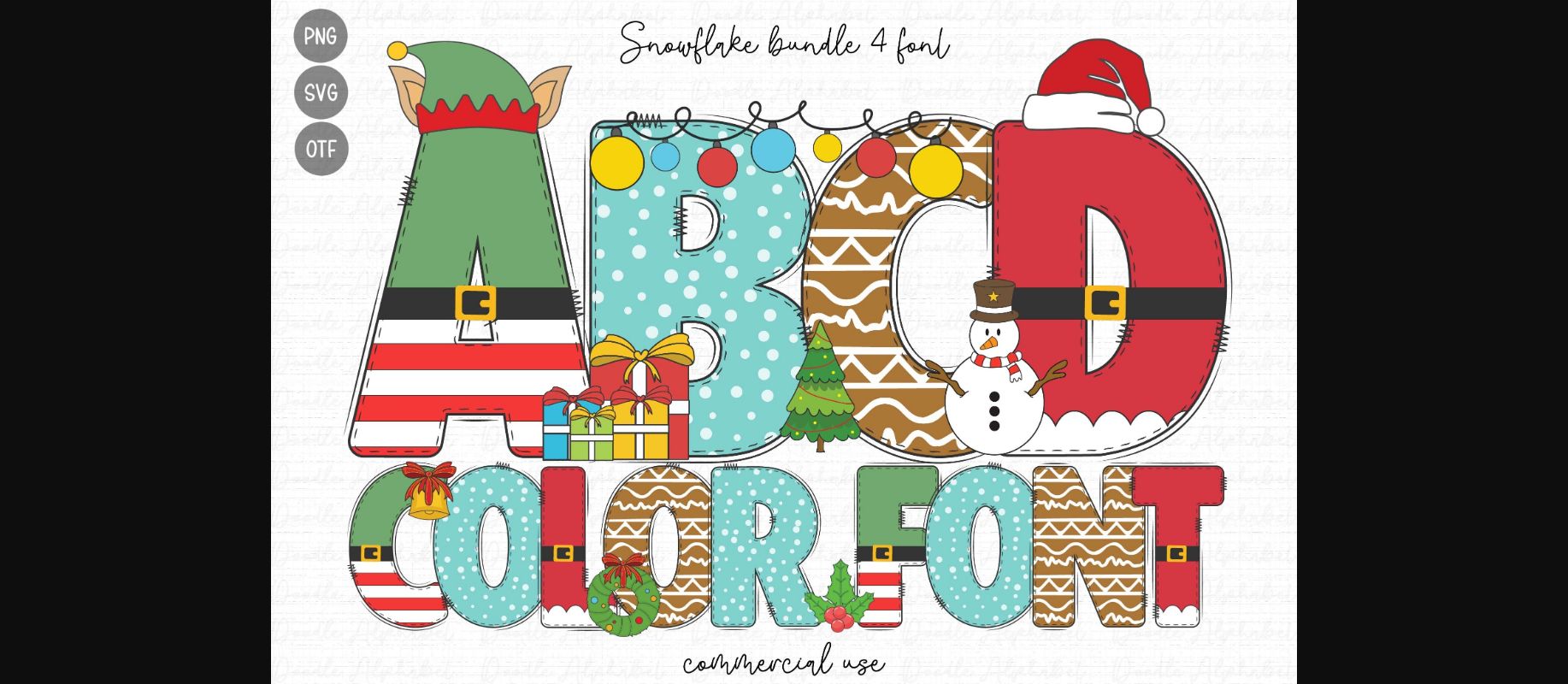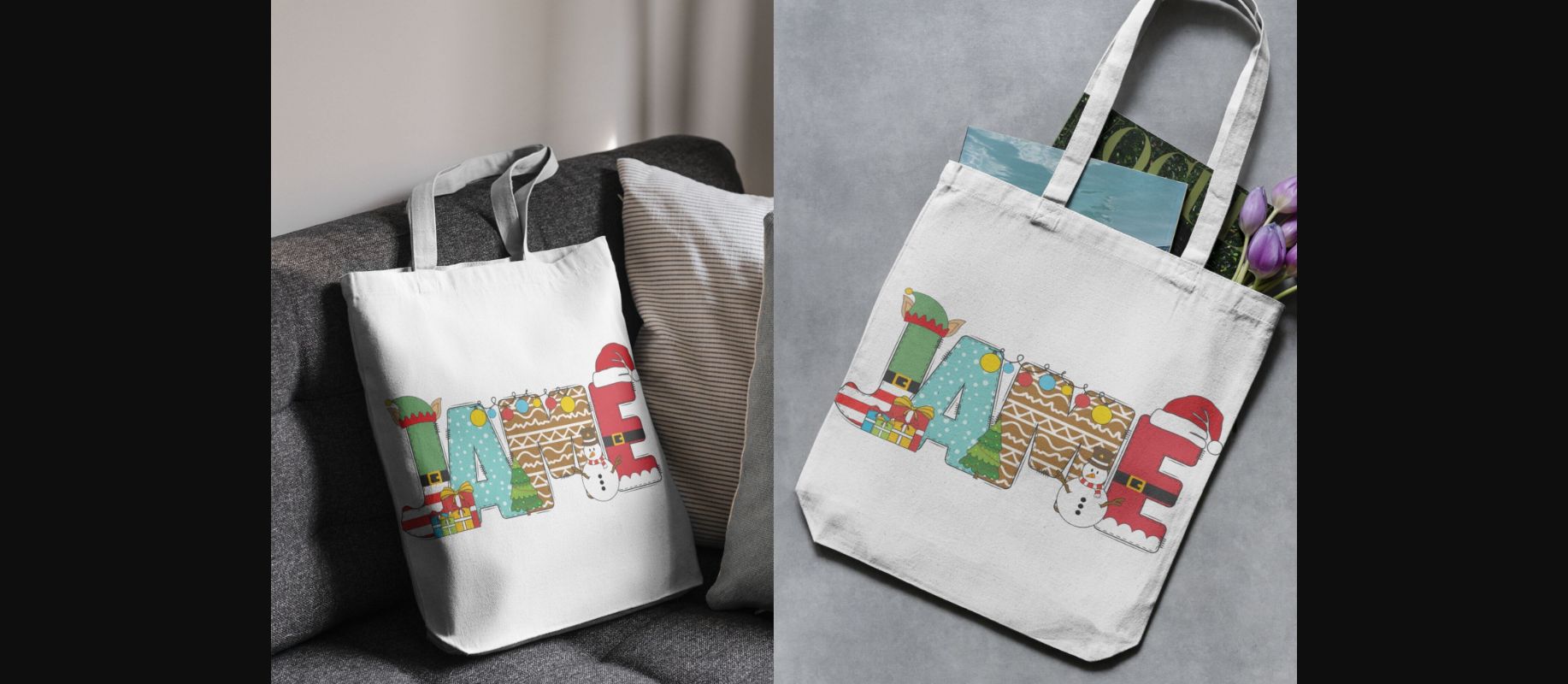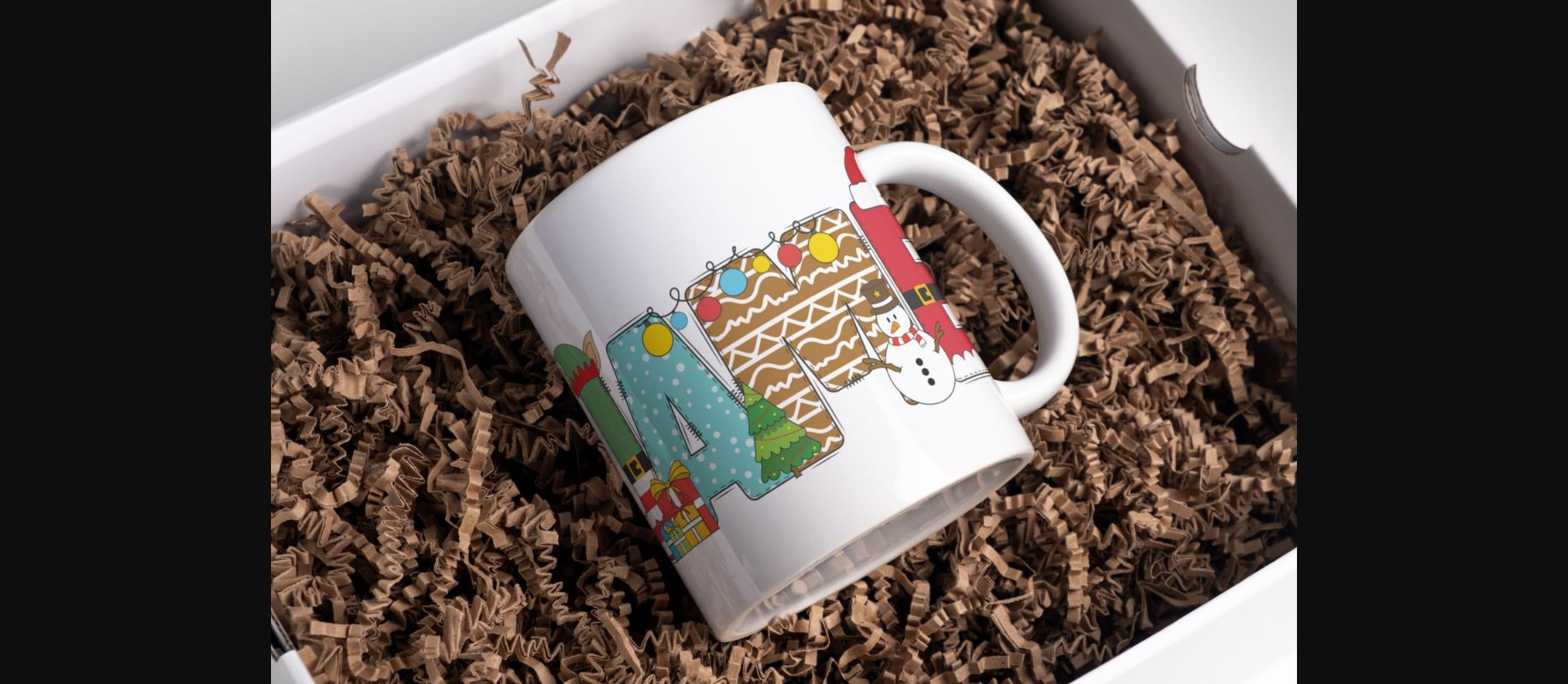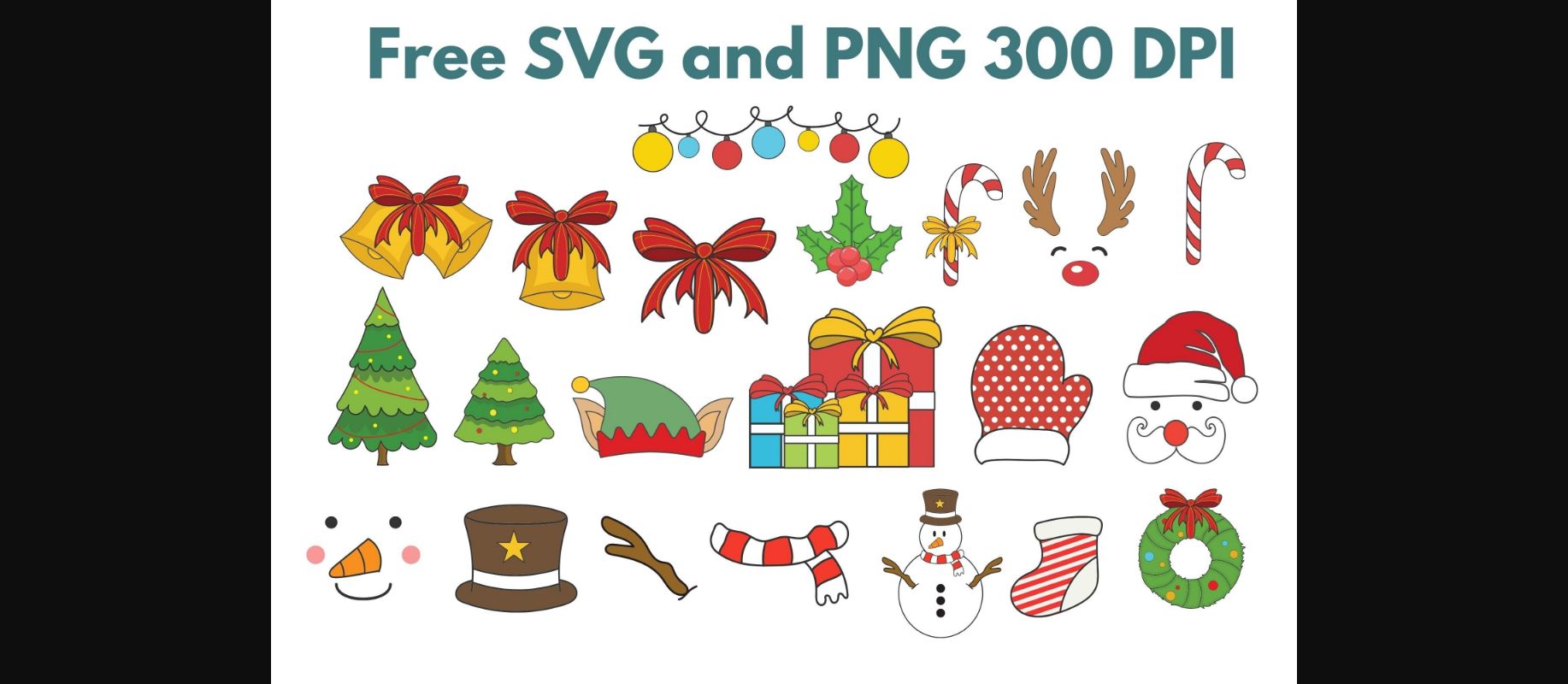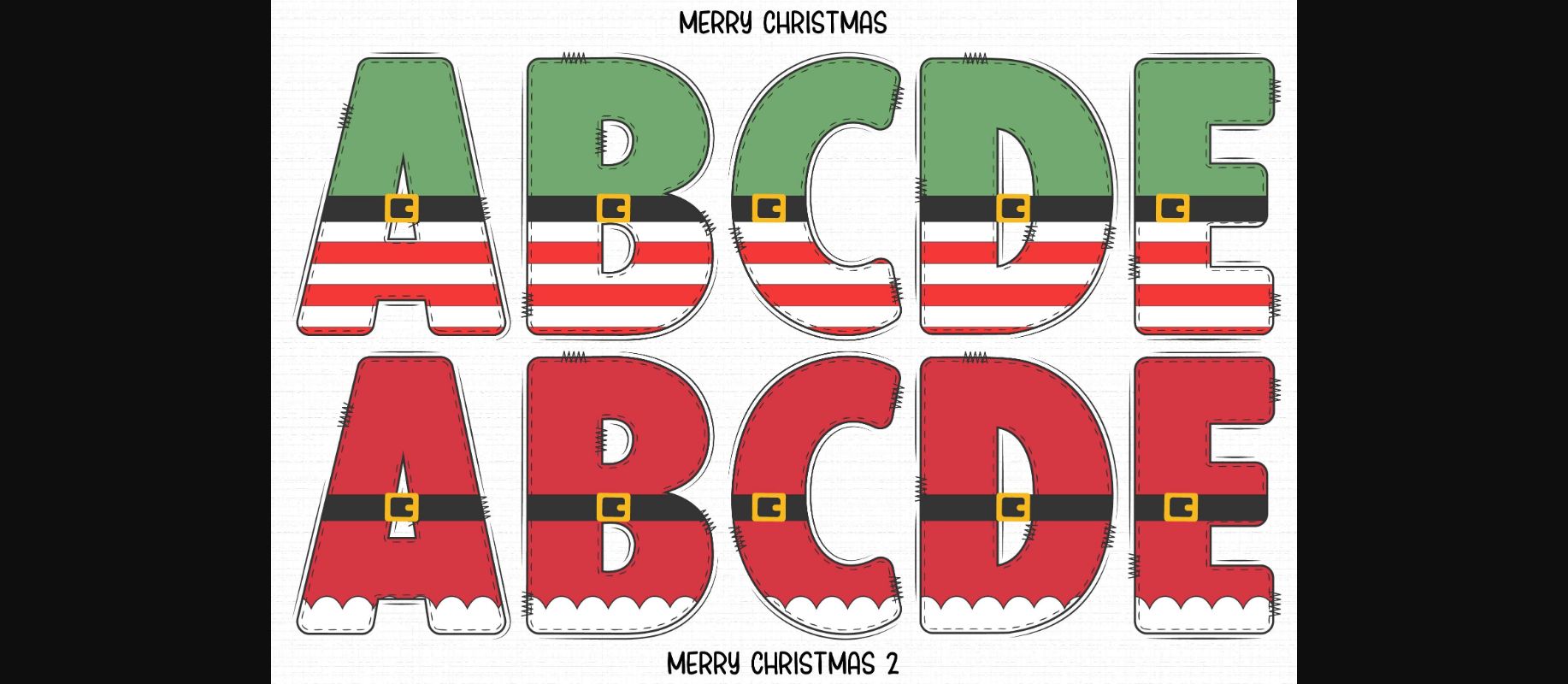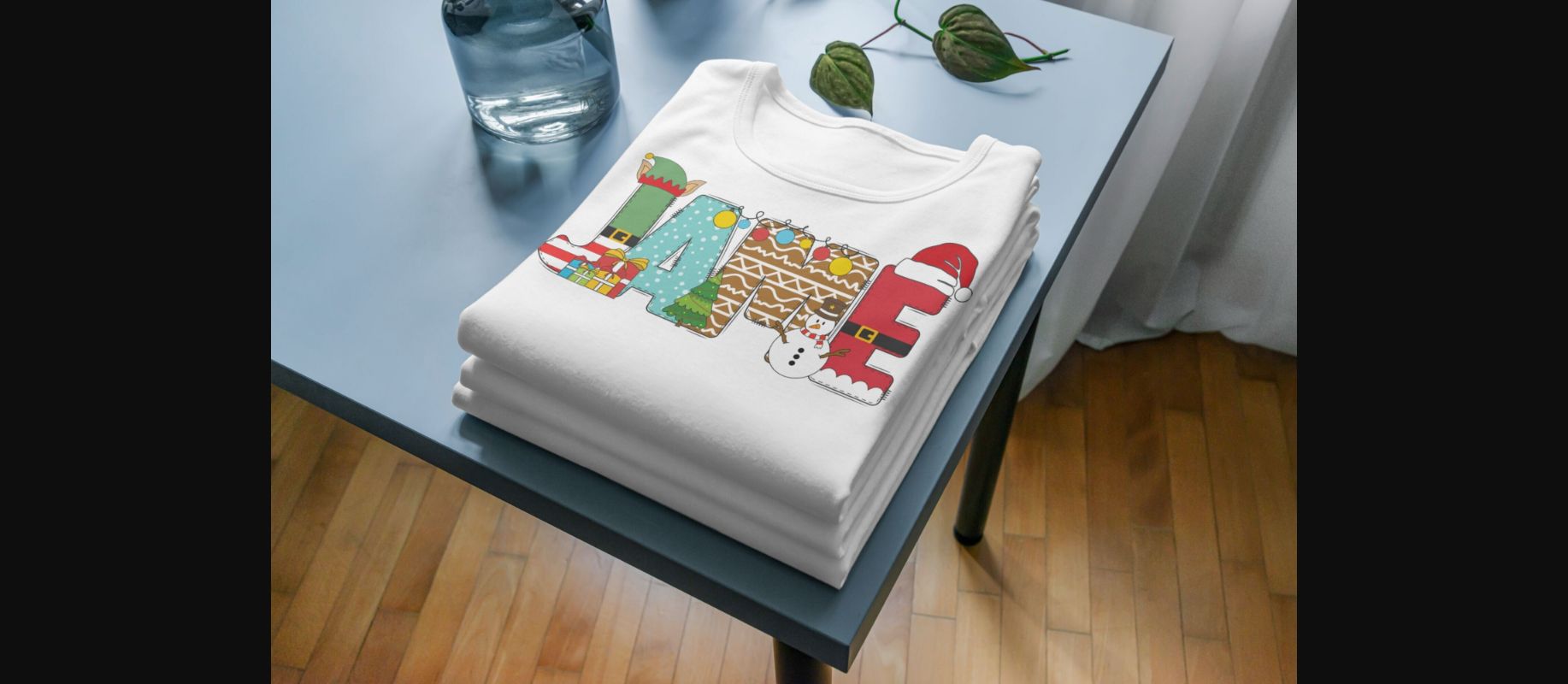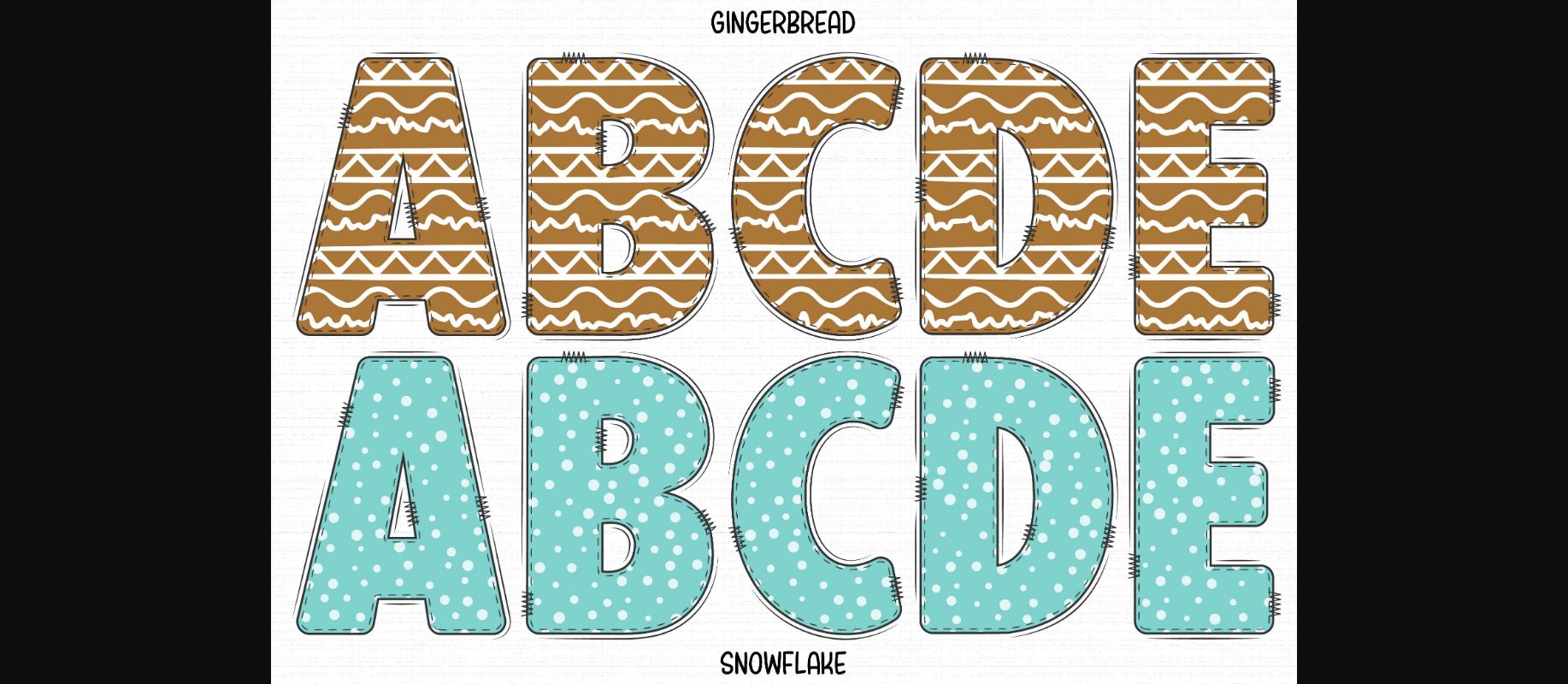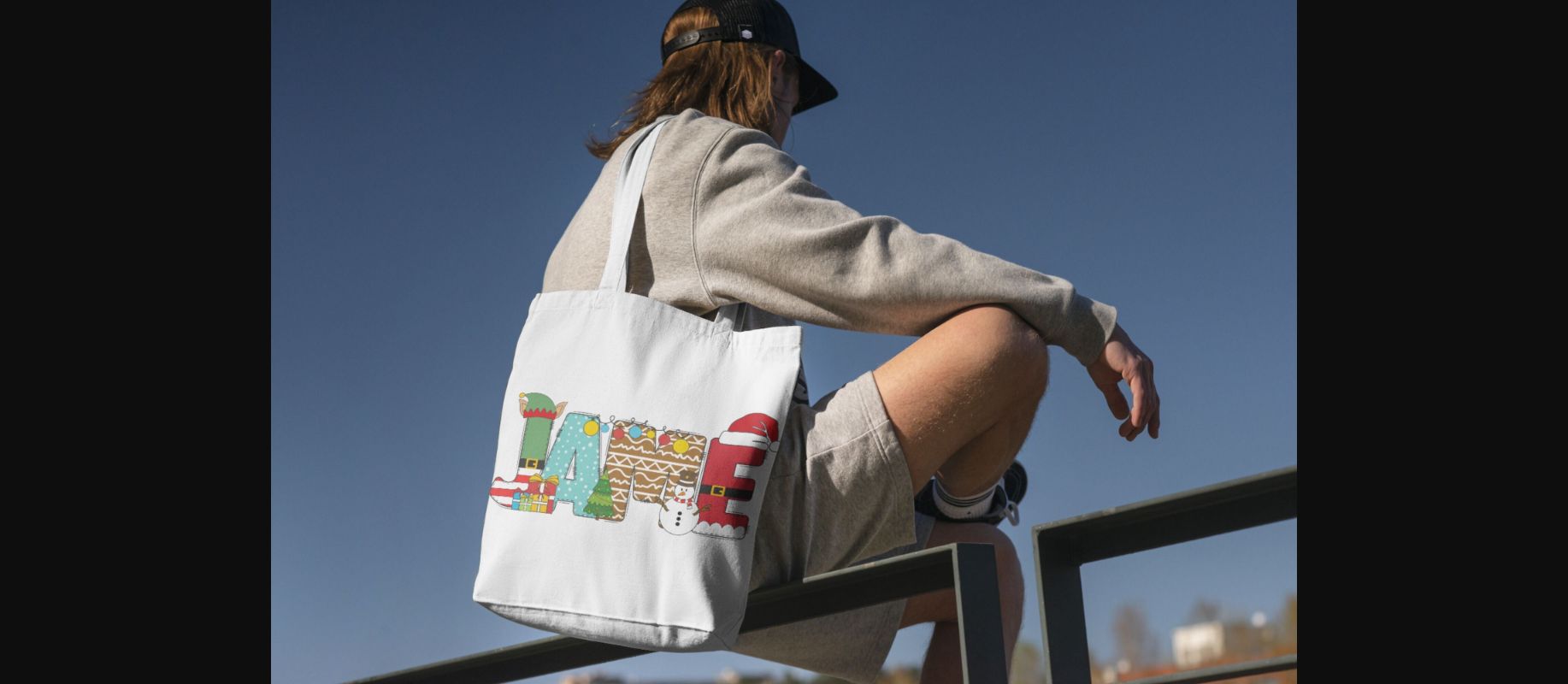
HomeDecorative FontsSnowflake Font Decorative Fonts Snowflake Font FacebookXPinterestWhatsApp 1 of 11 ... Snowflake Font Poster 2... Snowflake Font Poster 3... Snowflake Font Poster 4... Snowflake Font Poster 5... Snowflake Font Poster 6... Snowflake Font Poster 7... Snowflake Font Poster 8... Snowflake Font Poster 9... Snowflake Font Poster 10... Snowflake Font Poster 11... About Snowflake Font Snowflake is a cute and festive Decorative font. It will look amazing on all your Christmas-themed designs, shirts, crafts, and cards and will instantly enhance your projects! DOWNLOAD NOW People also explored Simple Love Lovely Smile Font Pinky Heart Font Coconut Island Font Morthao Font Flemingo Font Meont Font Desire Rough & Ragged Alleysha Font 306 0 TagsSnowflake Font Previous articleChristmas FontNext articleWaiting Christmas Font LEAVE A REPLY Cancel reply Comment: Please enter your comment! Name:* Please enter your name here Email:* You have entered an incorrect email address! Please enter your email address here Website: Save my name, email, and website in this browser for the next time I comment. Personal Use Free Barbatrick Personal Use Free Read more about this font Vanilla Whale Personal Use Free Read more about this font Fuixg Personal Use Free Read more about this font Karmatic Arcade Personal Use Free Read more about this font BLOG 5 Fonts That Will Dominate Design Trends in 2026 5 Fonts for 2026 That Will Dominate Design Trends Typography plays a critical role in visual communication, and as we look ahead to 2026, it’s... To increase your work productivity, choose the most readable fonts. Best Fonts for YouTube Videos: Make Your Thumbnails Stand Out How to Cut Any Font on Cricut: Convert a Font to SVG (Free)